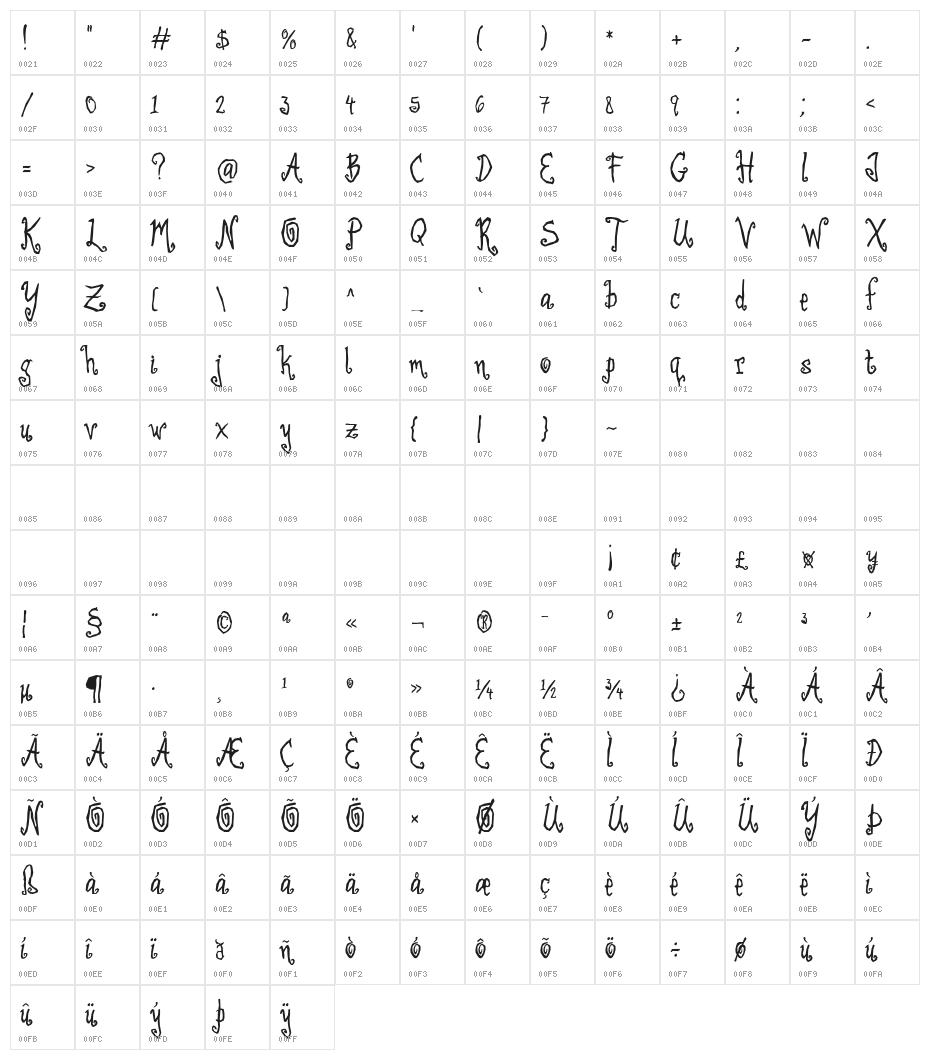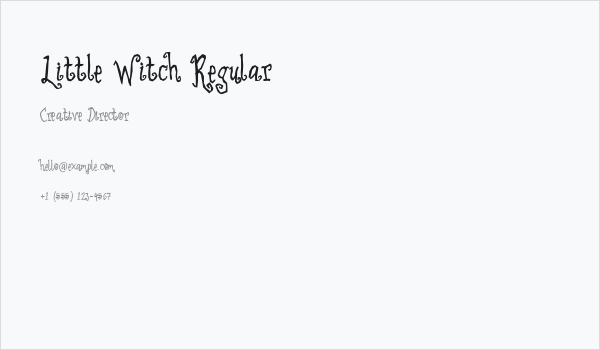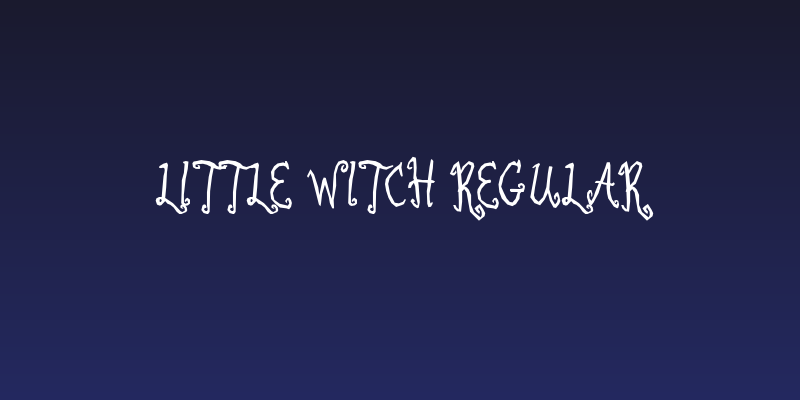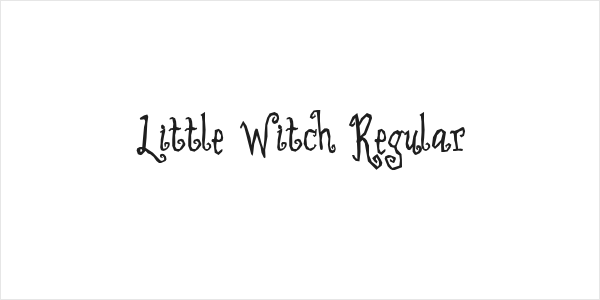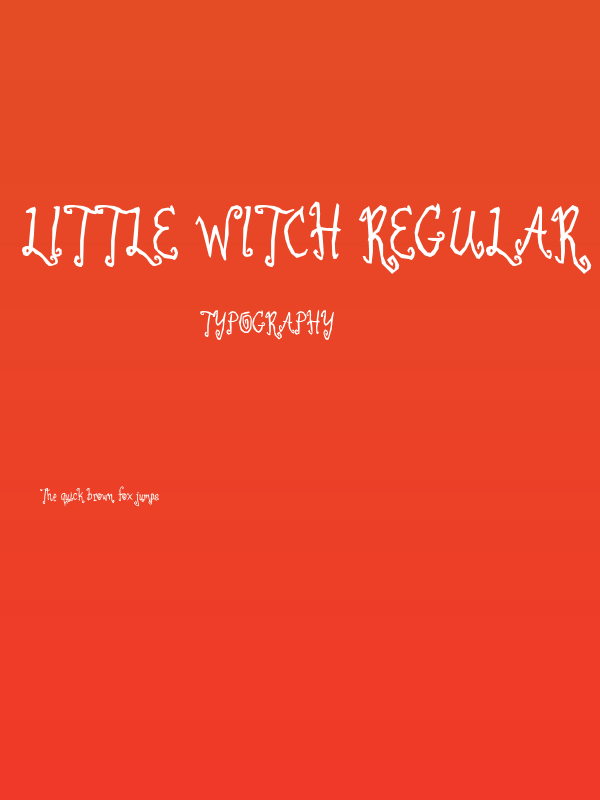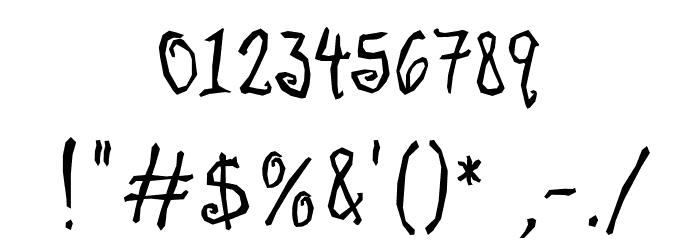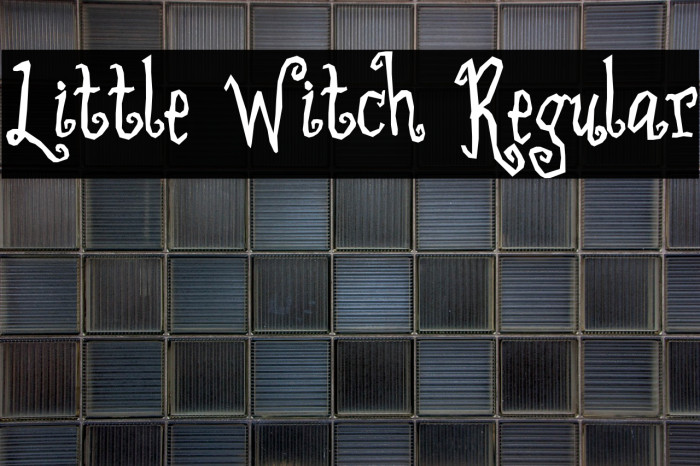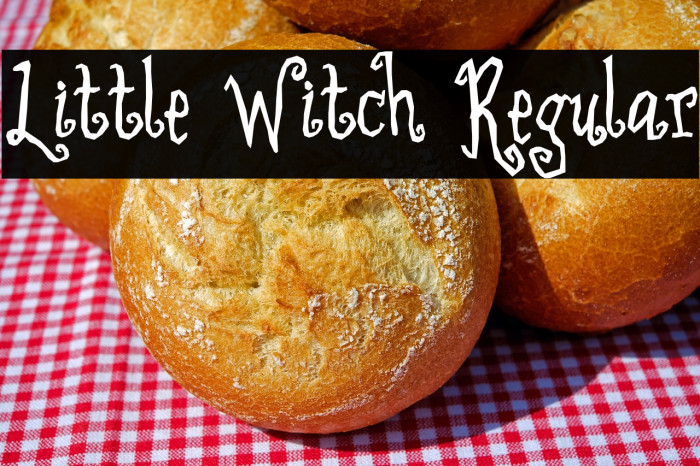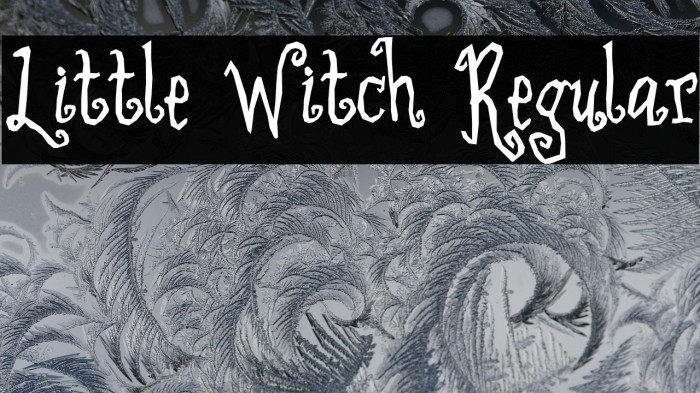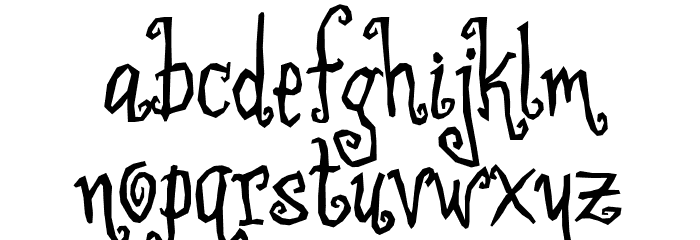
Little Witch Regular Font
Little Witch Regular Description
This whimsical and playful font features a unique, hand-drawn style with curly and irregular strokes that evoke a sense of magic and fantasy. Each character is distinct, with exaggerated curves and loops that give it a lively and animated appearance. The uppercase letters are bold and prominent, while the lowercase letters maintain the same quirky charm. Numbers and special characters are equally stylized, ensuring consistency throughout the typeface. This font is perfect for projects that require a touch of enchantment and creativity, making it ideal for Halloween-themed designs, children's book covers, or any project that aims to capture a mystical or playful vibe.
| Proposed Projects | Ideal for Halloween-themed graphics, children's books, fantasy game titles, and creative invitations. |